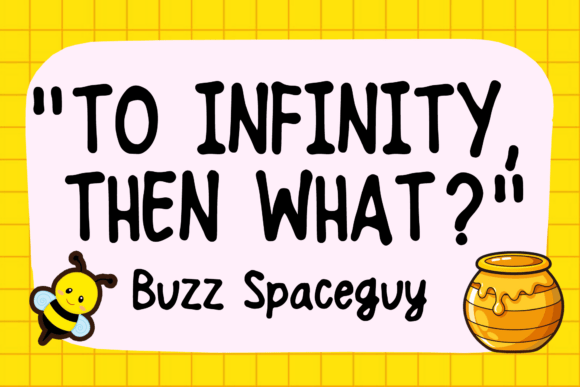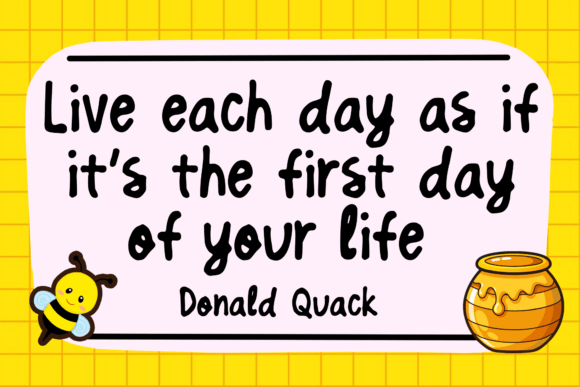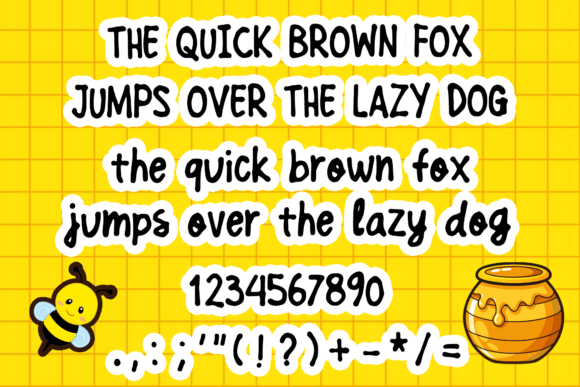
Introduction to Honey Daily Font Font
Fonts play a crucial role in design, and the Honey Daily Font font is a typeface that brings both character and versatility to any project. Whether you’re working on a branding project, a website, or a print design, the Honey Daily Font font offers a unique style that can elevate your work.
Introducing Honey Daily, a whimsical handwritten font bursting with playful charm.
This versatile typography marvel has the power to transform ordinary designs into standout masterpieces Perfectly suited for a myriad of creative projects; from sprucing up stickers, revolutionizing t-shirt graphics, crafting captivating logos, enhancing magazine or book covers, illustrating comics, or perfecting cartoon drawings, Honey Daily works wonders.
Key Features of Honey Daily Font Font
Why Choose Honey Daily Font Font?
The Honey Daily Font font is more than just a typeface – it’s a design tool that helps you communicate your message with style and clarity. Its unique character set and versatile design make it suitable for a wide range of applications, from elegant invitations to bold headlines.
With its carefully crafted letterforms and balanced proportions, the Honey Daily Font font ensures readability and visual appeal across all mediums.
What makes Honey Daily Font font special?
The Honey Daily Font font stands out with its unique design, exceptional readability, and versatility across various design applications.